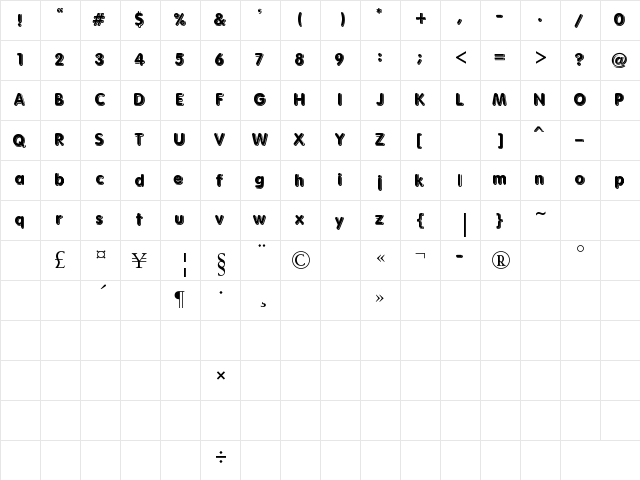
Solid 3d Regular
Design Context for Solid 3d Typeface
Solid 3d is a composed and adaptable typeface that performs quietly and consistently across a wide range of design contexts.